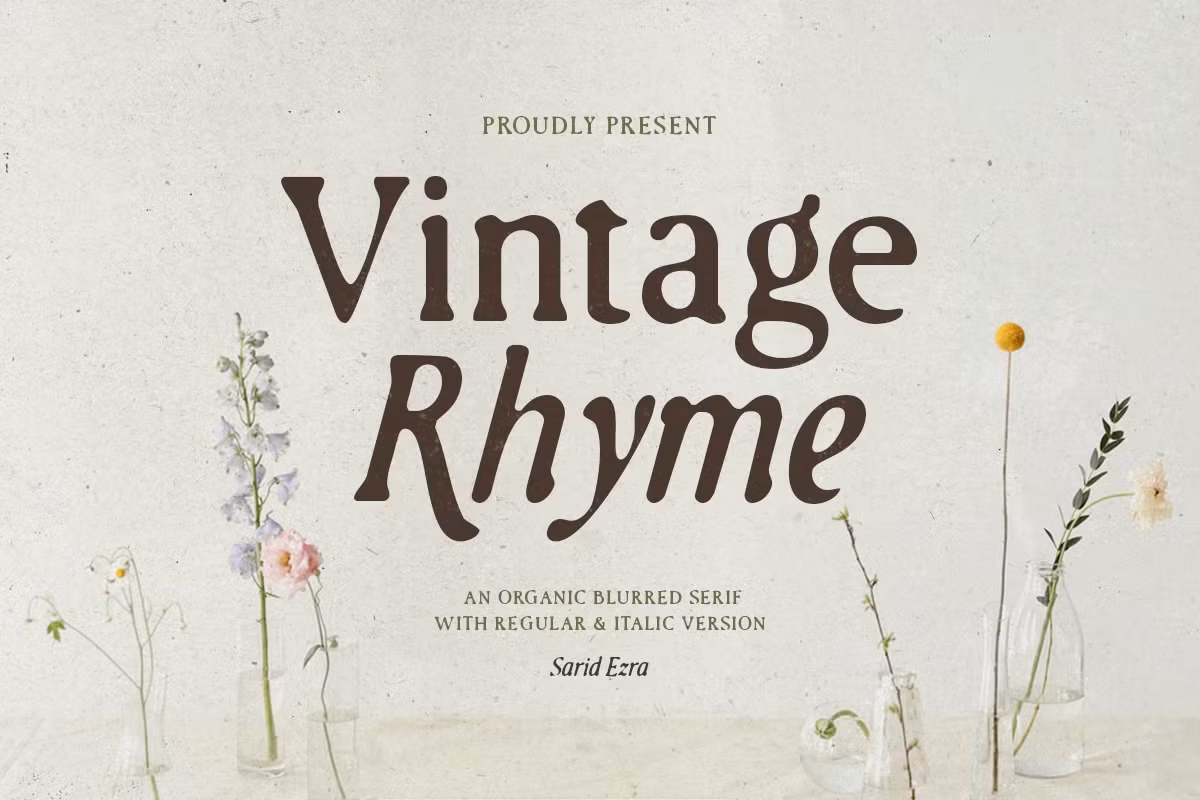
The Vintage Rhyme - Blurred Serif Font Free Download is a creative and stylish typeface that combines classic serif elements with a unique, blurred effect. This font’s distinctive design makes it perfect for projects that need a vintage yet modern feel, such as branding, logos, posters, and social media graphics. The blurred effect adds a sense of mystery and artistic flair to your typography, making it ideal for creative and nostalgic designs. Whether you’re working on a retro-themed project, a fashion brand, or any project that requires a touch of elegance, Vintage Rhyme will elevate your work with its unique character. Please note, for commercial use, a license purchase is required. However, you can easily download the Vintage Rhyme - Blurred Serif Font Free Download for free for personal use and explore its potential. Download the Vintage Rhyme - Blurred Serif Font Free Download today and add a nostalgic yet creative touch to your designs.